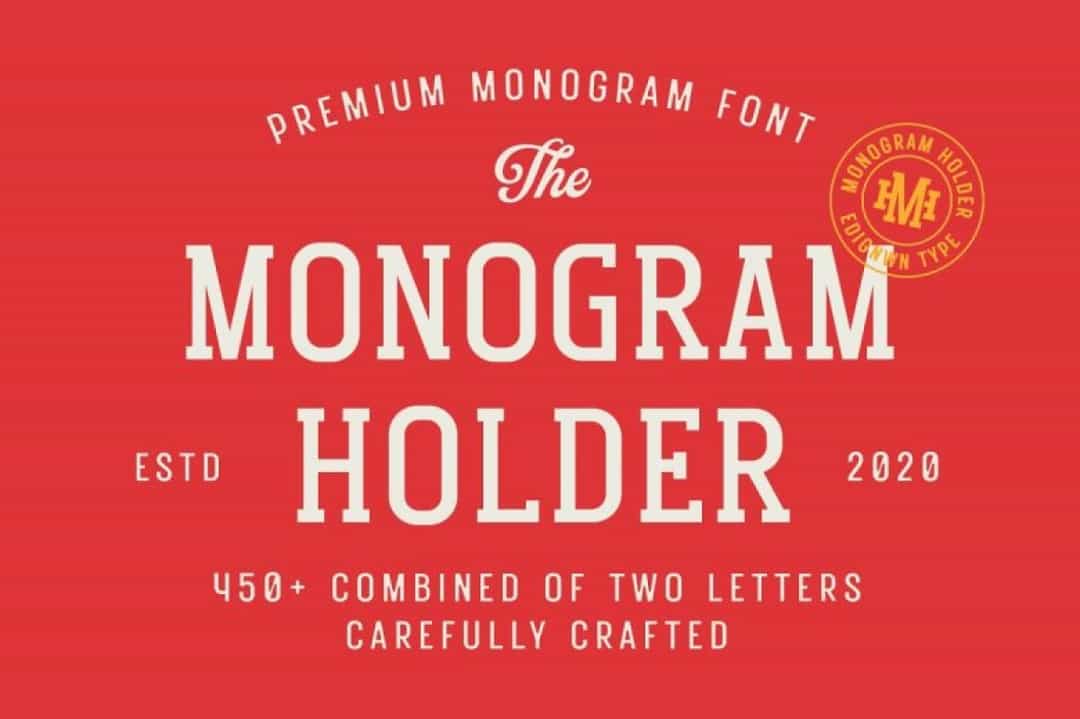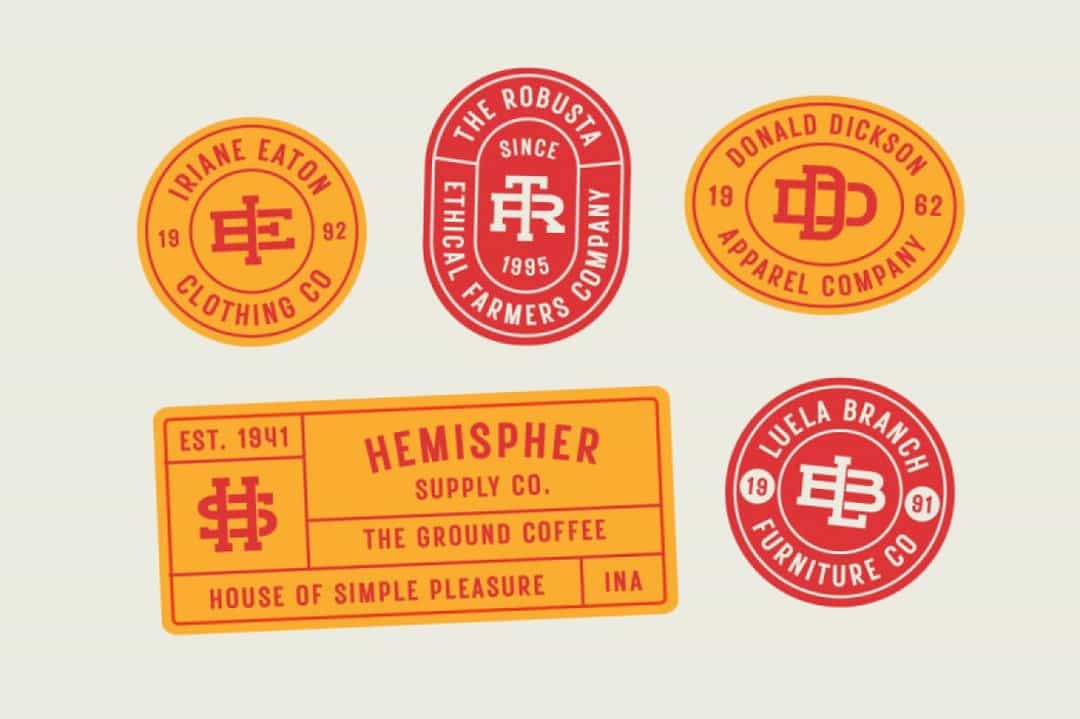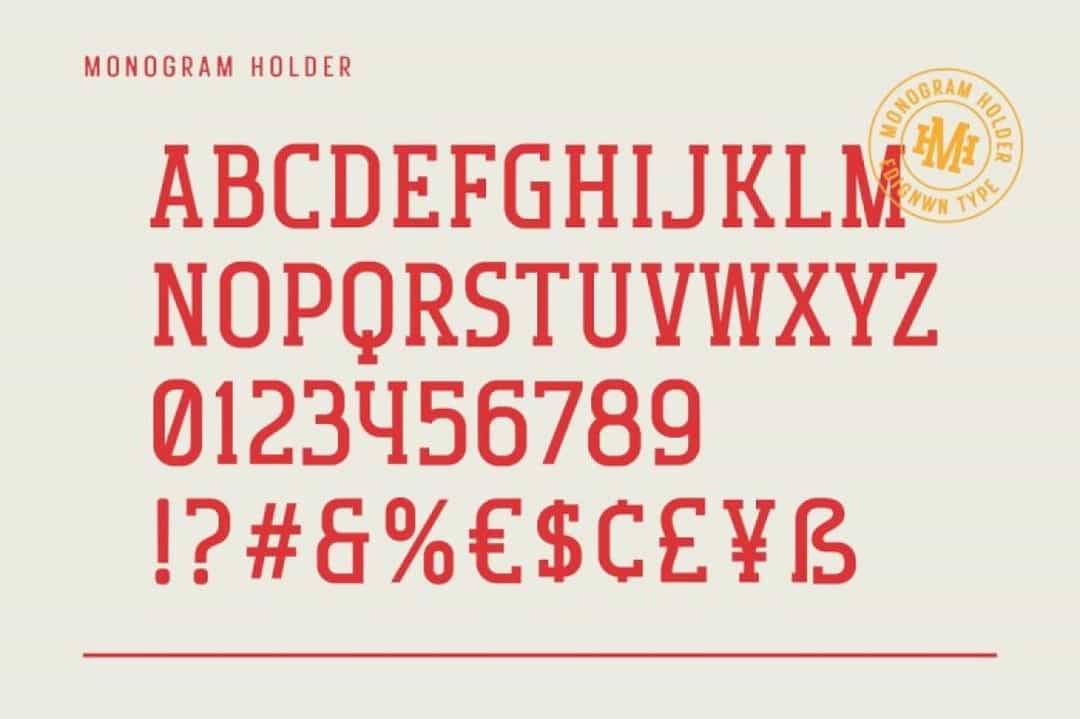
Monogram Holder font is a slab serif display with monogram-themed themes. With over 450+ letters available to it, all it takes to create your monogram is using uppercase letters and lowercase letters; for instance if you typed “M” and “h”, that would become monogrammed “Mh”.